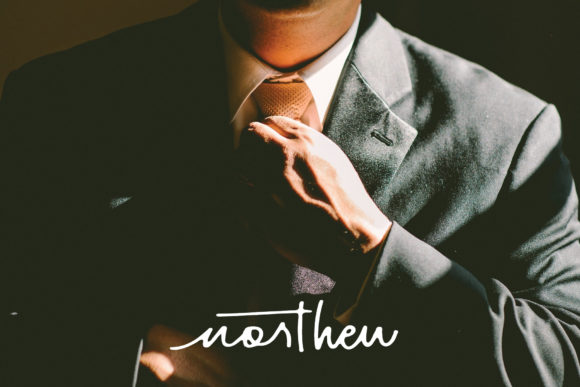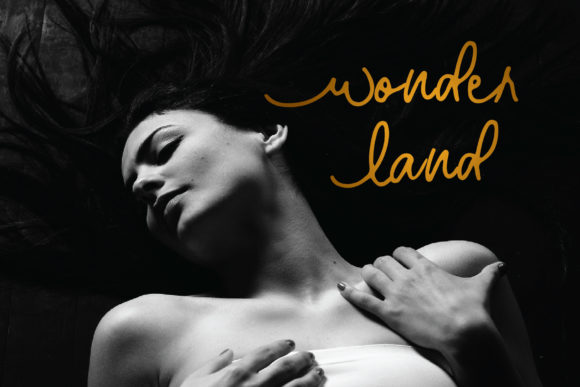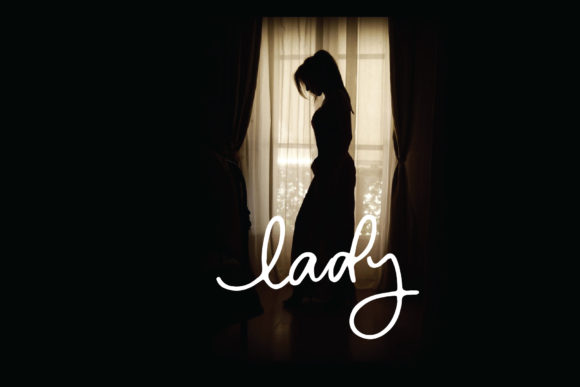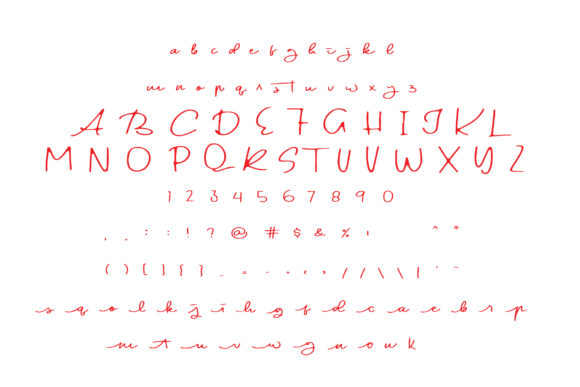
Northen Font
About Northen Font
Northen features a strong, powerful and unique style that will take any design project to the next level. Get inspired by its authentic charm!